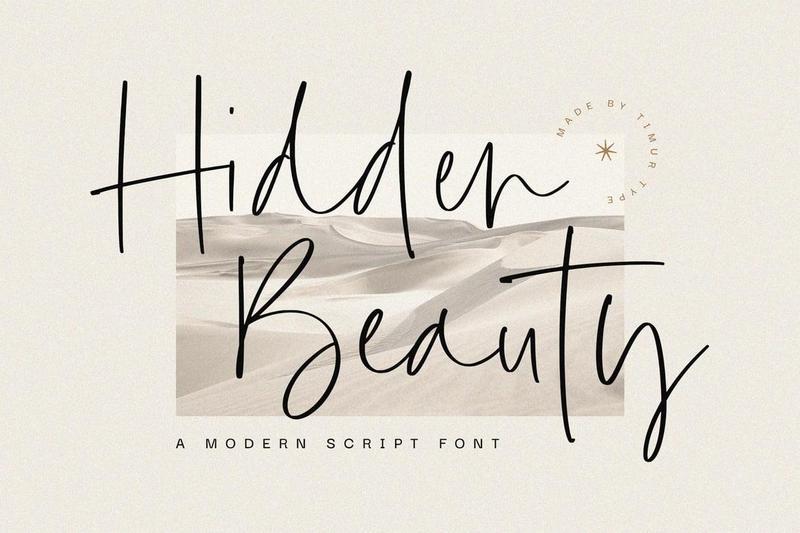
Hidden Beauty Font QJLDUQC
Hidden Beauty A Modern Script Font, which was created with great care and specially created for you.
Hidden Beauty is perfect for product packaging, branding project, megazine, social media, wedding, or just used to express words above the background.